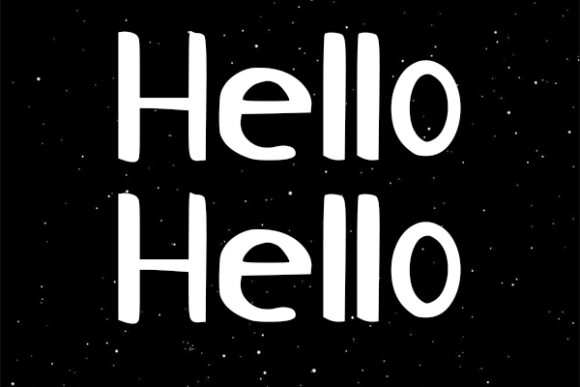
Introducing Hello Font: The Ultimate Choice for Stunning Logos, Branding, and Quotes
Are you a designer, craftsperson, or simply someone who loves to create visually appealing content? Look no further than Hello Font! This incredible font is specifically designed to help you create eye-catching logos, branding, and quotes that will leave a lasting impression on your audience. With its unique and beautiful touch, every letter in Hello Font is carefully crafted to bring your design to life.
The Power of Typography: Why Hello Font Stands Out
Typography plays a crucial role in any design project. The right font can make all the difference in conveying your message, establishing your brand identity, and engaging your audience. Hello Font understands this importance and offers a distinctive style that sets it apart from other fonts. Its elegant and modern aesthetic makes it perfect for a wide range of design applications, from logos and branding to quotes and social media graphics.
What Makes Hello Font So Special?
So, what makes Hello Font the best choice for creating stunning designs? Here are just a few reasons why designers and crafters love working with this amazing font:
- Unique and Beautiful Touch: Every letter in Hello Font has a unique and beautiful touch that adds a touch of elegance and sophistication to your designs.
- Elegant and Modern Aesthetic: Hello Font boasts an elegant and modern aesthetic that’s perfect for creating designs that are both visually appealing and timeless.
- Versatile: Whether you’re designing a logo, creating a brand identity, or crafting a quote, Hello Font is versatile enough to adapt to any design style or application.
- Easy to Read: Despite its elegant and artistic design, Hello Font remains easy to read, making it perfect for use in a wide range of design projects.
How to Use Hello Font to Elevate Your Designs
Now that you know why Hello Font is the perfect choice for creating stunning designs, let’s explore some ways you can use it to elevate your projects:
Logo Design
Create a memorable logo that stands out from the crowd with Hello Font. Its unique and beautiful touch makes it perfect for crafting logos that are both elegant and eye-catching.
Branding
Establish a strong brand identity with Hello Font. Use it to create consistent branding across all your marketing materials, from business cards to website headers.
Quote Design
Create inspiring and shareable quotes with Hello Font. Its elegant and modern aesthetic makes it perfect for crafting quotes that are both visually appealing and thought-provoking.
Tips and Tricks for Getting the Most Out of Hello Font
To help you get the most out of Hello Font, here are some tips and tricks to keep in mind:
- Experiment with Different Sizes: Don’t be afraid to experiment with different font sizes to find the perfect balance for your design.
- Play with Colors: Try out different color combinations to find the perfect match for your brand or design style.
- Mix and Match: Combine Hello Font with other fonts to create a unique and visually appealing design.
In conclusion, Hello Font is the ultimate choice for designers, craftspersons, and anyone looking to create stunning logos, branding, and quotes. With its unique and beautiful touch, elegant and modern aesthetic, and versatility, Hello Font is the perfect addition to any design project. So why wait? Download Hello Font today and start creating eye-catching designs that will leave a lasting impression on your audience!